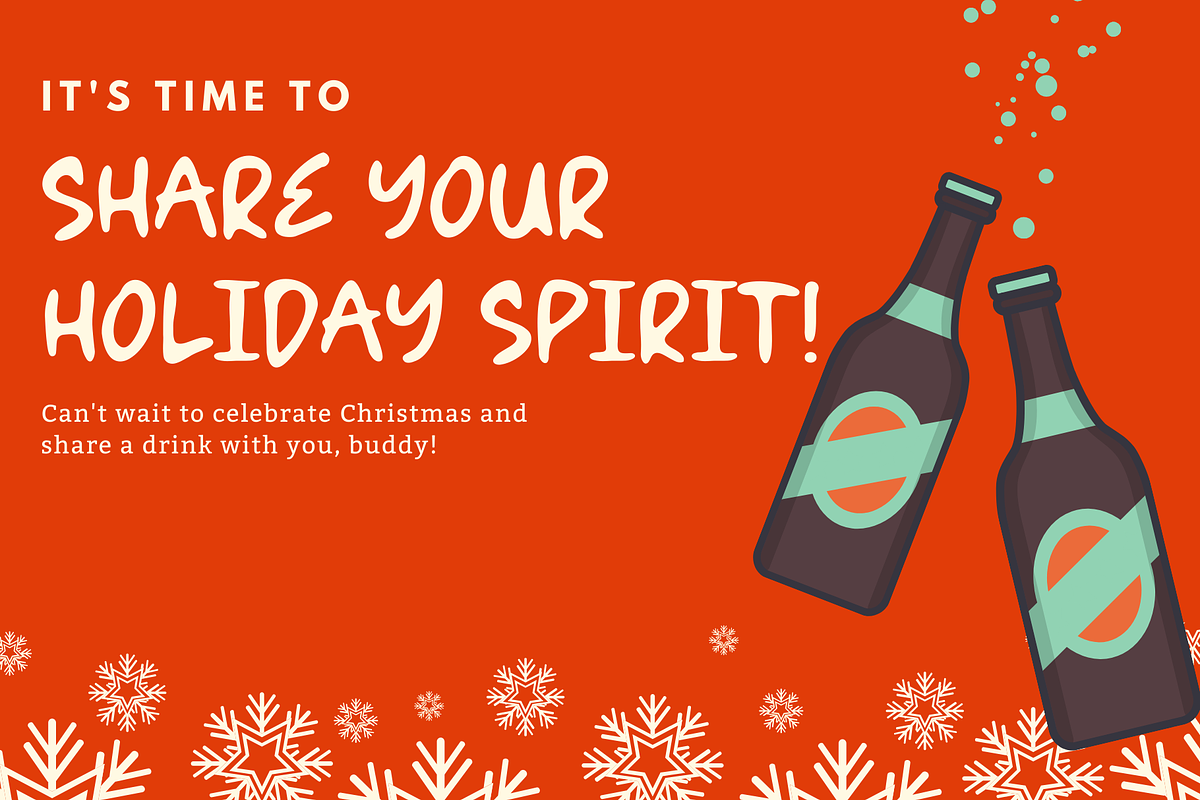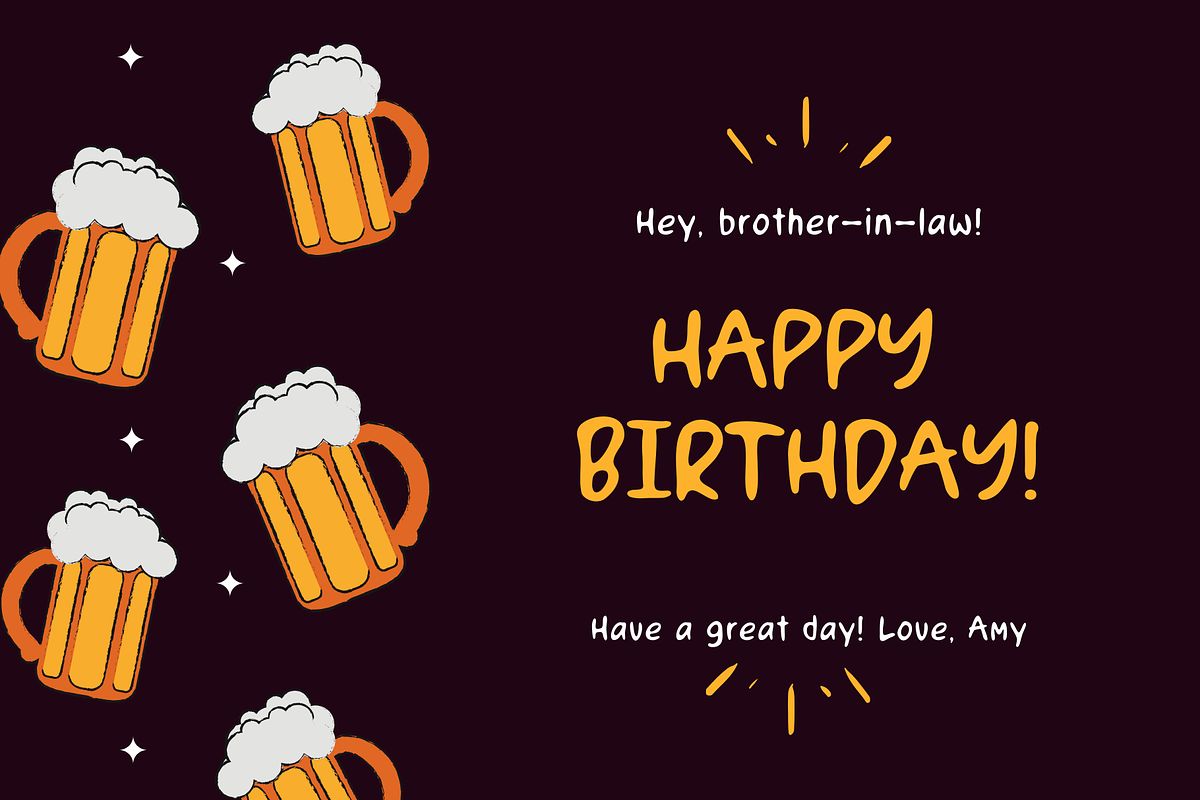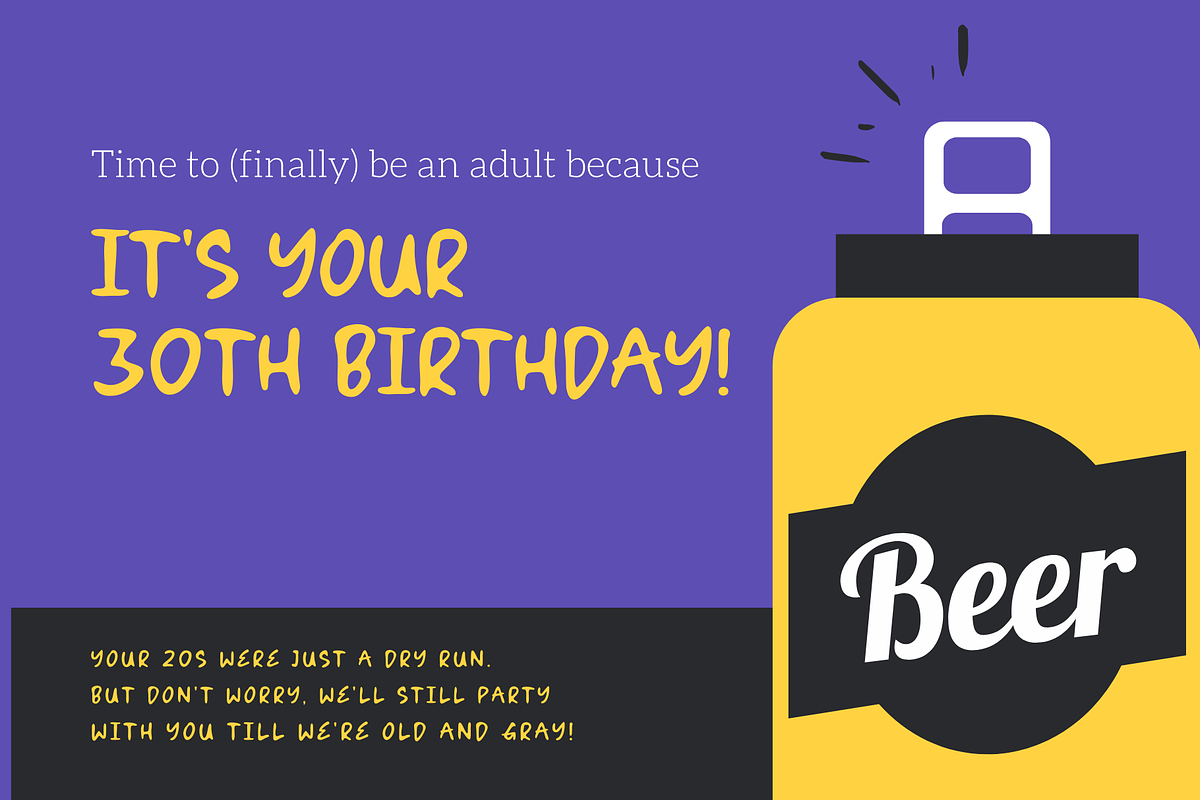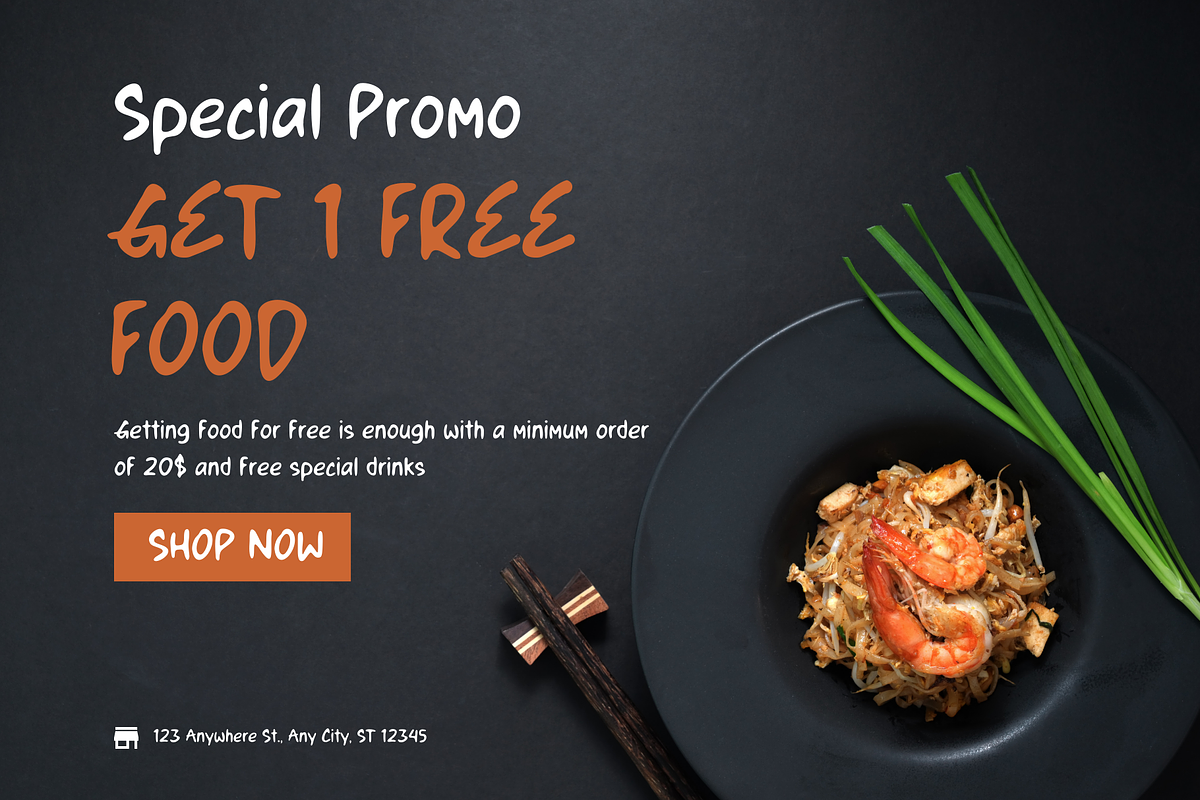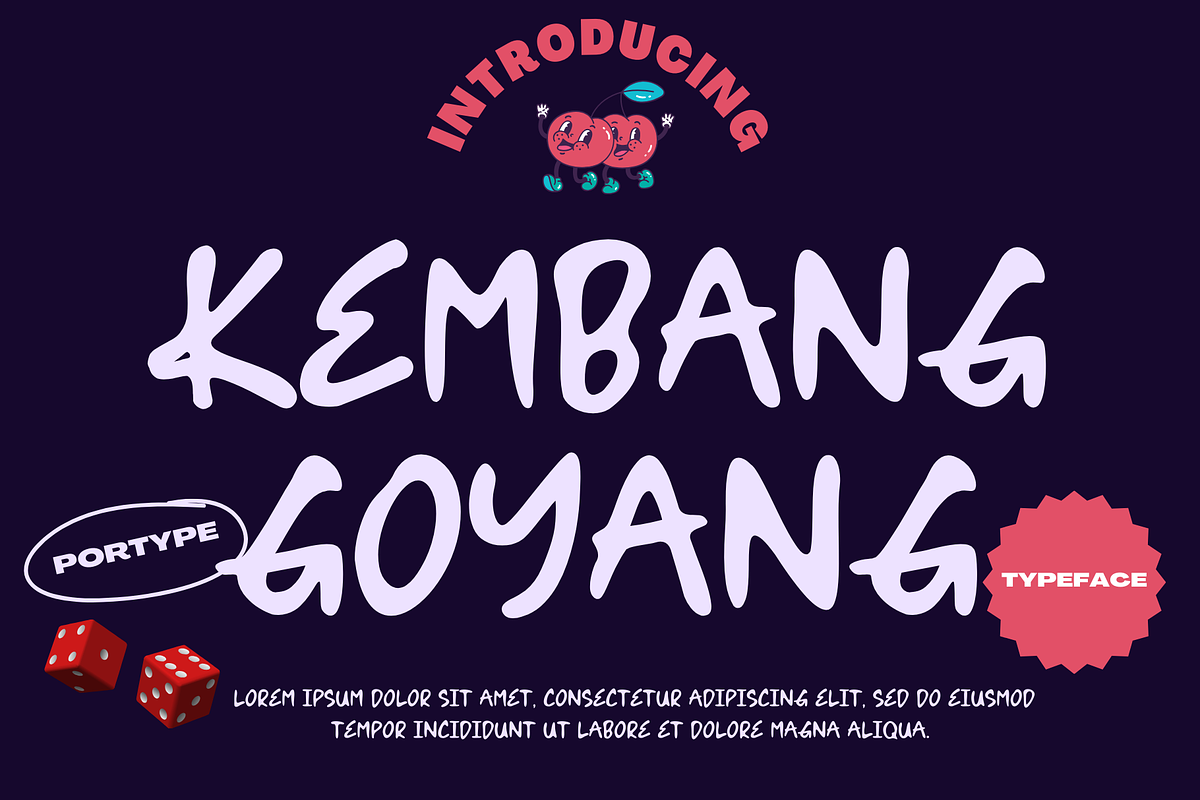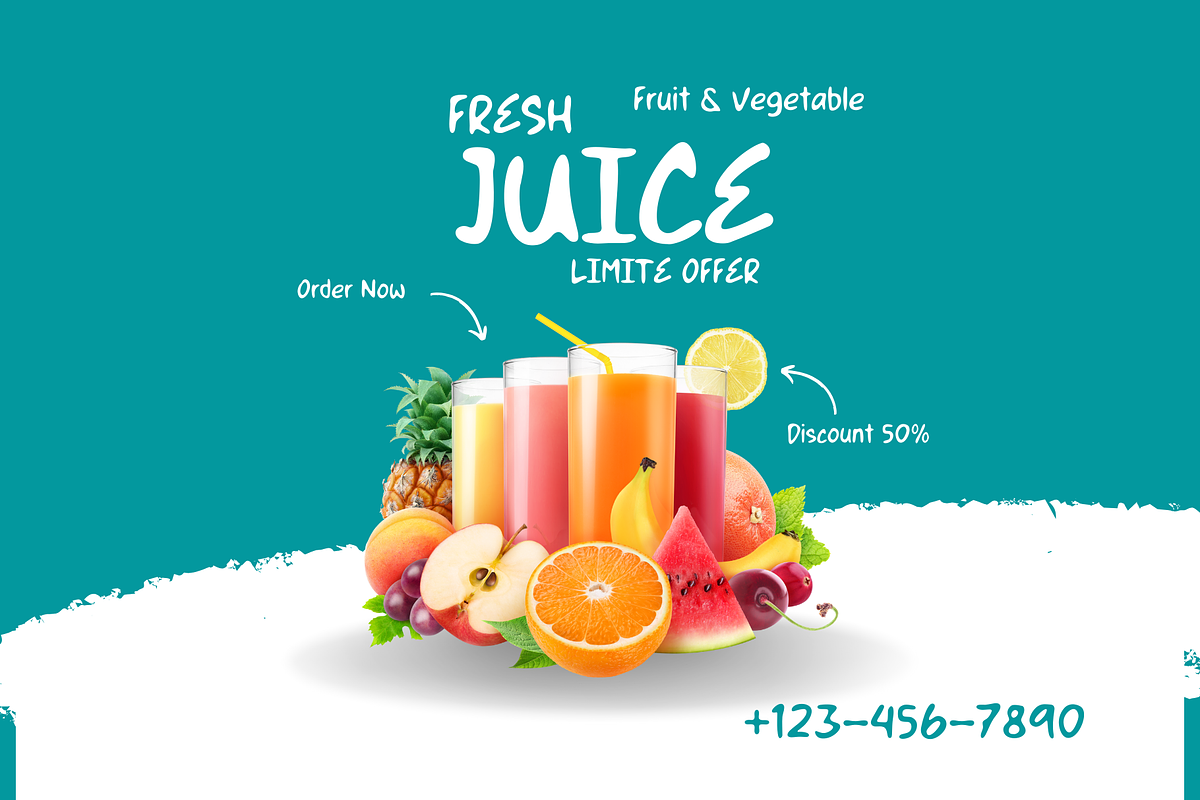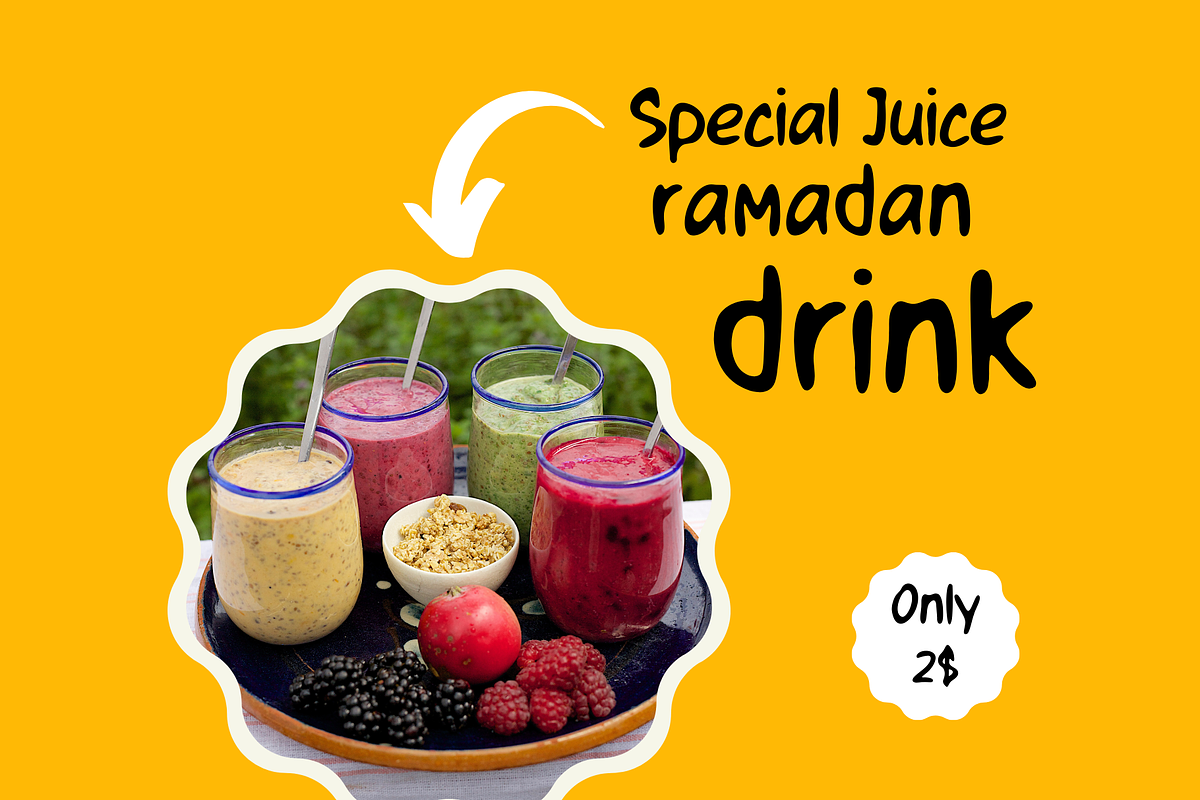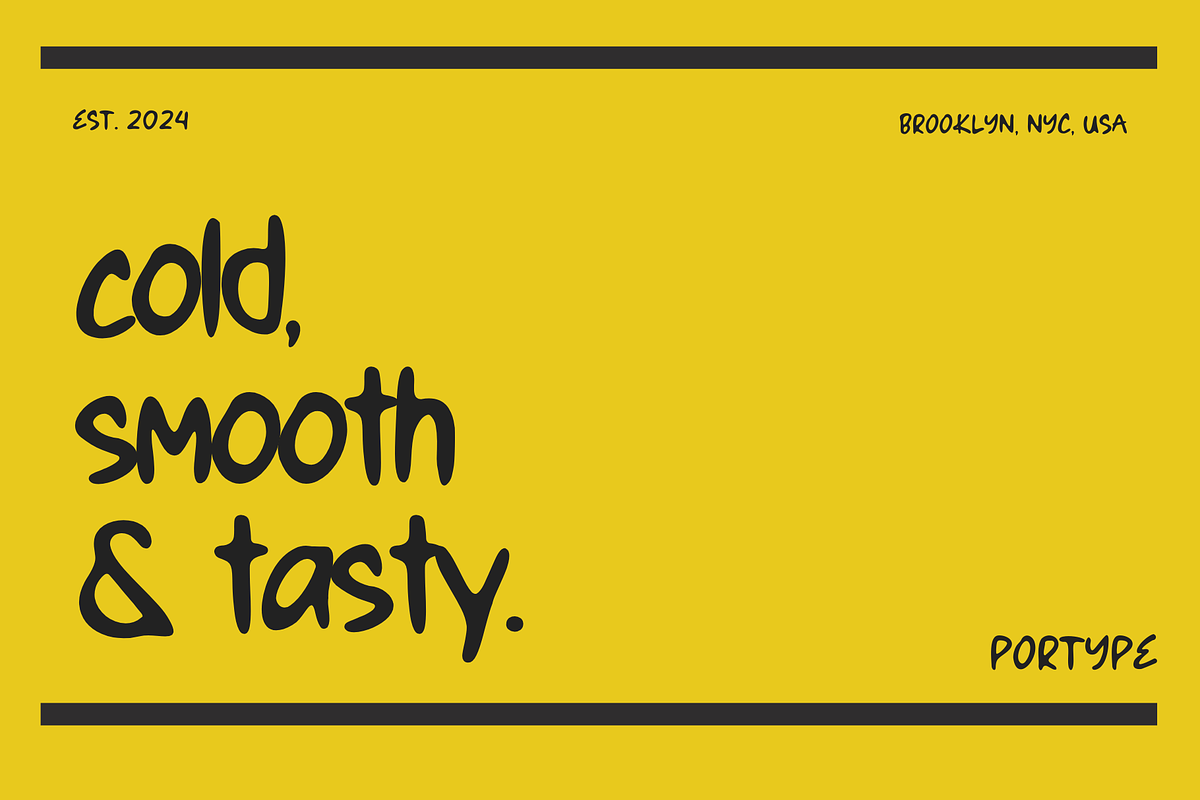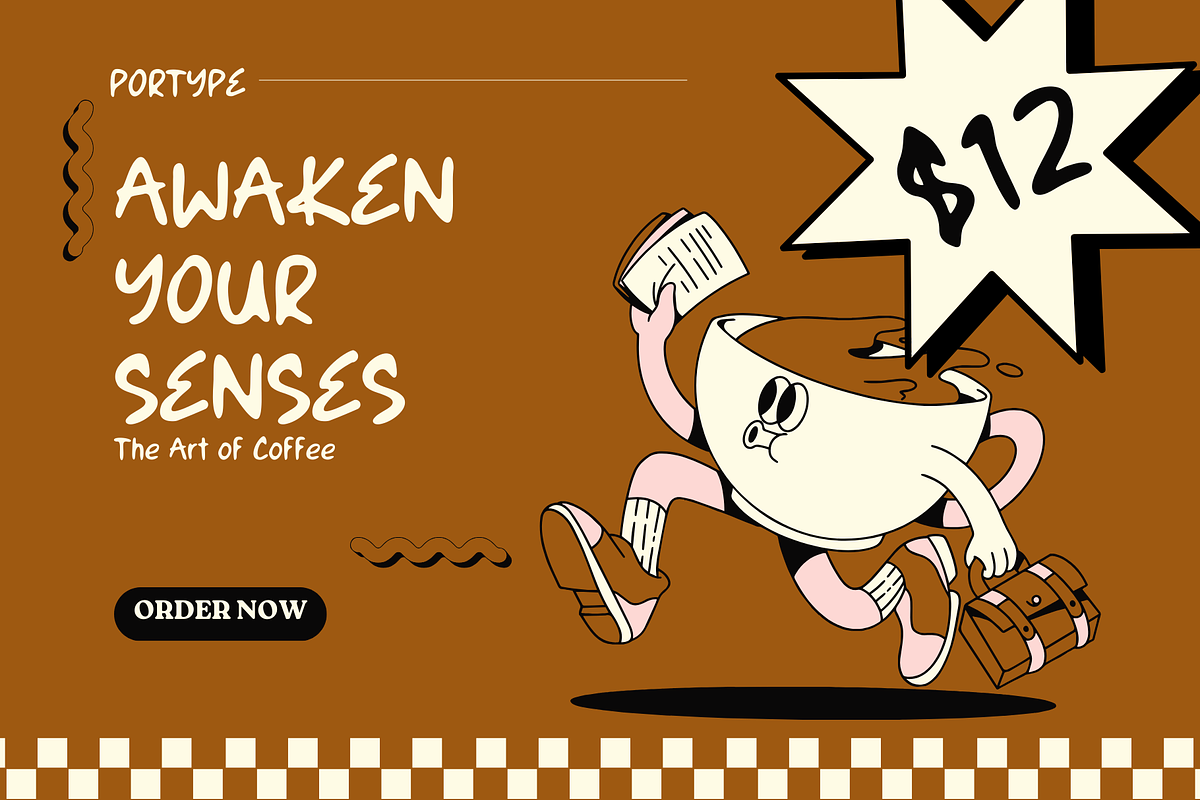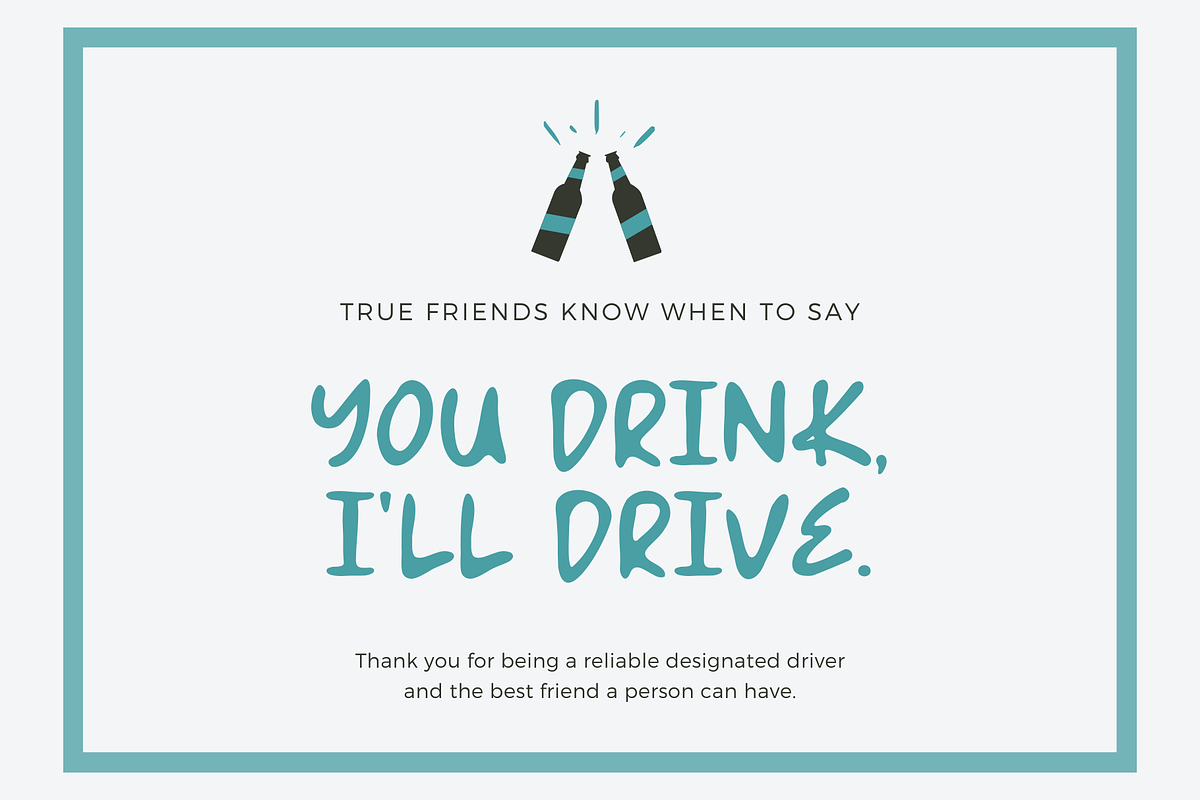
Kembang Goyang
Kembang Goyang Typeface is a typeface designed with an elegant and artistic handwritten style. Inspired by the graceful movements of traditional Indonesian dance, each character in Kembang Goyang features smooth and dynamic curves. This typeface is perfect for a variety of creative projects such as invitations, packaging design, branding, and promotional materials that require a personal and aesthetic touch. Kembang Goyang offers a warm and inviting impression, making it an ideal choice for creating captivating and characterful works.